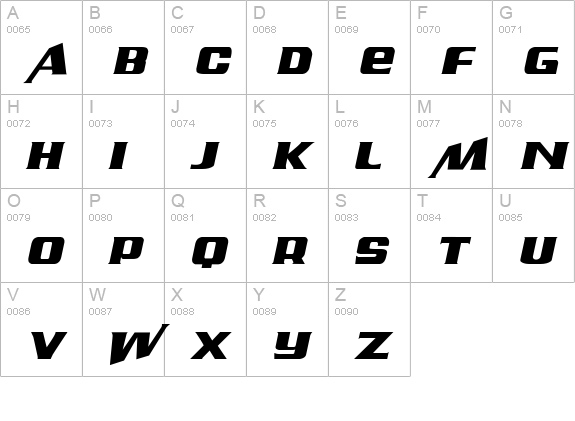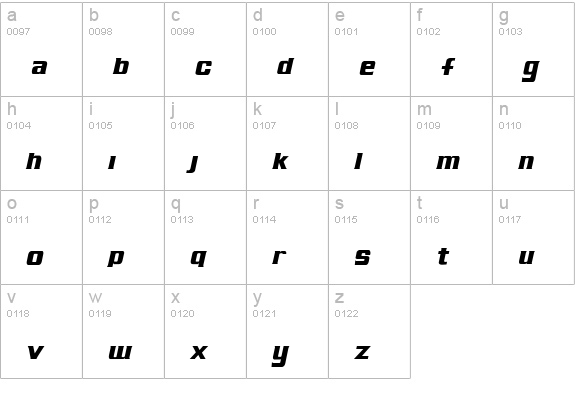
Air Millhouse Italic Font Details
Air Millhouse Italic is a distinctive, italic variant in the Air typeface family \xE2\x80\x94 well suited to design and typography projects.
Air Millhouse Italic is a stunning and elegant font that exudes sophistication and modernity. Its sleek and stylish design makes it perfect for a wide range of projects, from branding to editorial design. The italic style adds a touch of flair and uniqueness to any text, making it stand out and captivate the reader's attention. What sets Air Millhouse Italic apart is not only its visual appeal but also the fact that it is available for free download at FontsMarket.com. This means that you can easily access and use this beautiful font in your creative endeavors without any cost. Whether you're designing a website, creating a logo, or working on a print project, Air Millhouse Italic is a versatile and eye-catching font that will elevate your work to the next level. Download Air Millhouse Italic for free today and add a touch of sophistication and style to your designs!